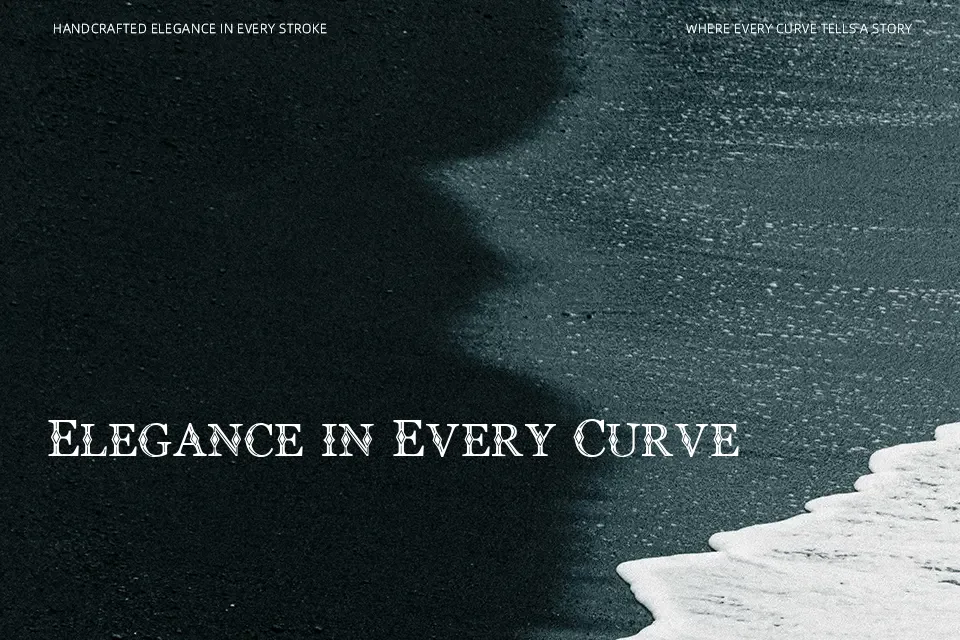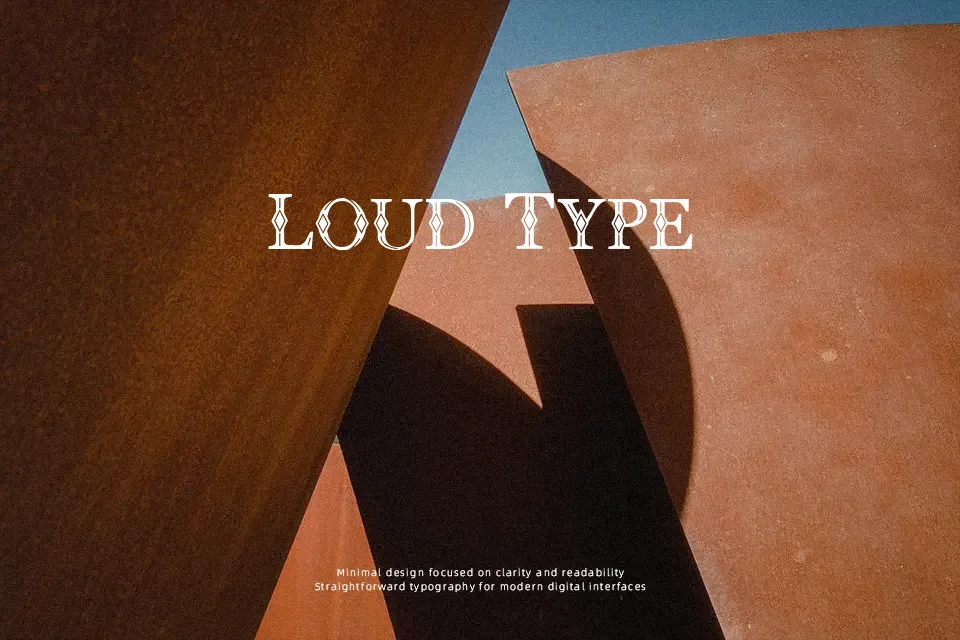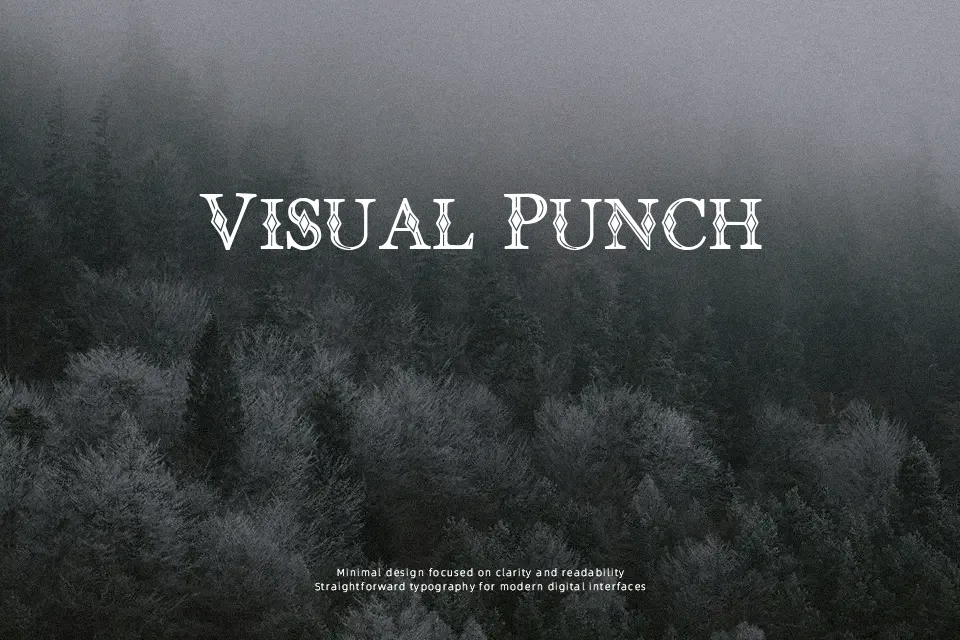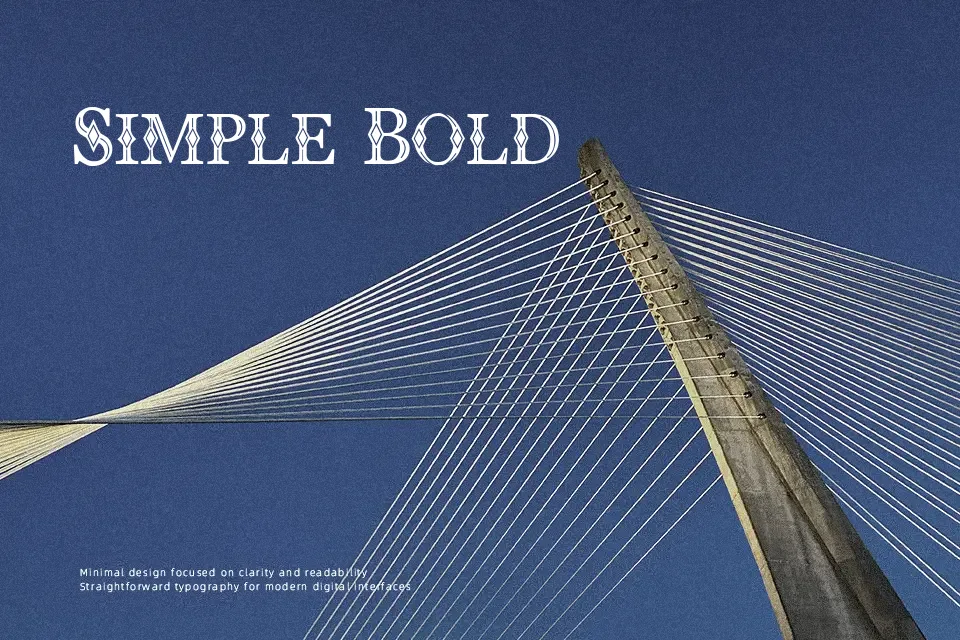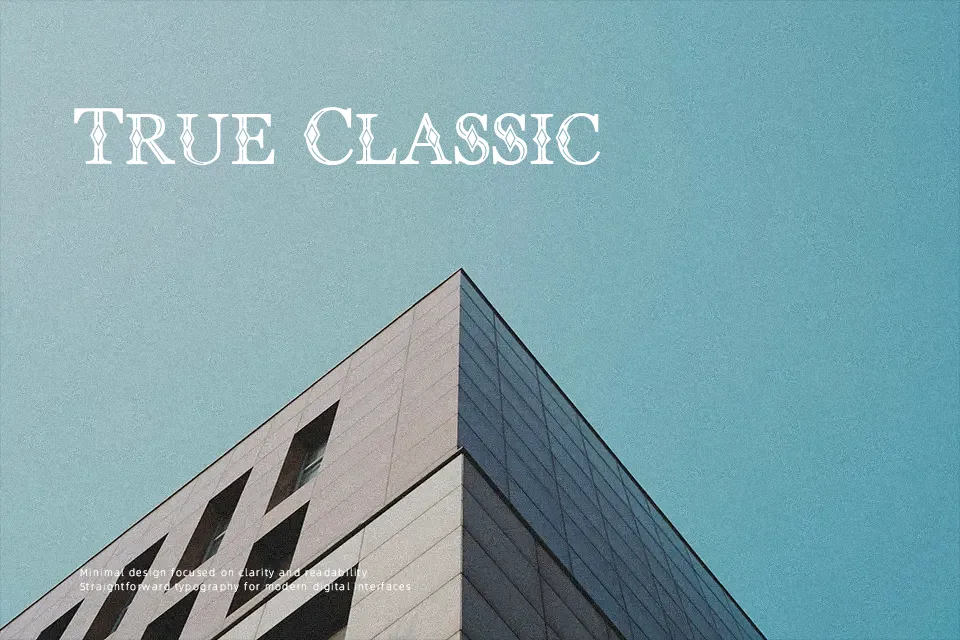
CF Diamond Font
CF Diamond Font is an all-caps decorative display typeface characterized by faceted diamond patterns embedded within sturdy, structured letterforms. The exterior contours provide bold definition, while the geometric interior linework creates pronounced visual texture and contrast. Spacing between characters is relatively generous to keep the detailed interior geometry legible across large compositions. At display scales, the typeface excels in luxury product packaging, jewelry branding, and theatrical title graphics. However, the intricate internal details deteriorate rapidly at smaller sizes, making the letterforms unreadable in continuous body text or captions. The design requires ample breathing room to preserve its elaborate decorative clarity.
Best For: luxury product packaging, jewelry brand logos, event poster headlines, VIP invitation cards
Not Ideal For: continuous body text, mobile interface labels, dense editorial paragraphs, small caption text